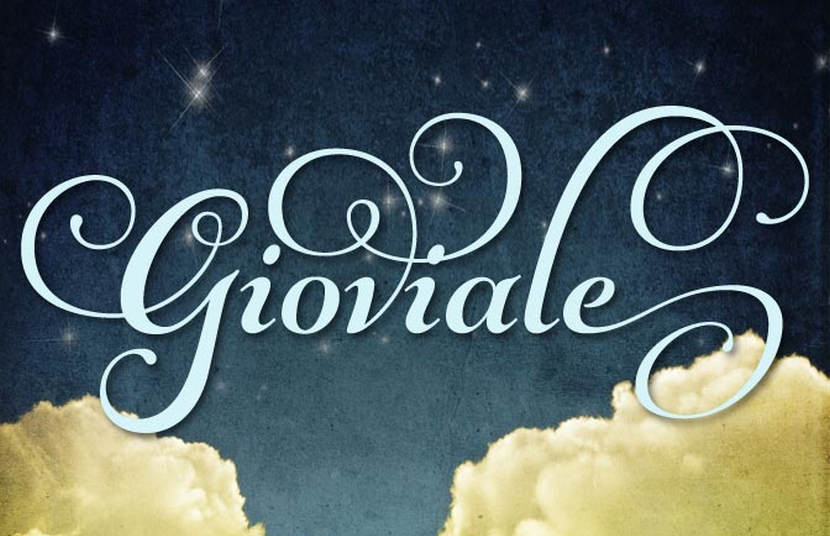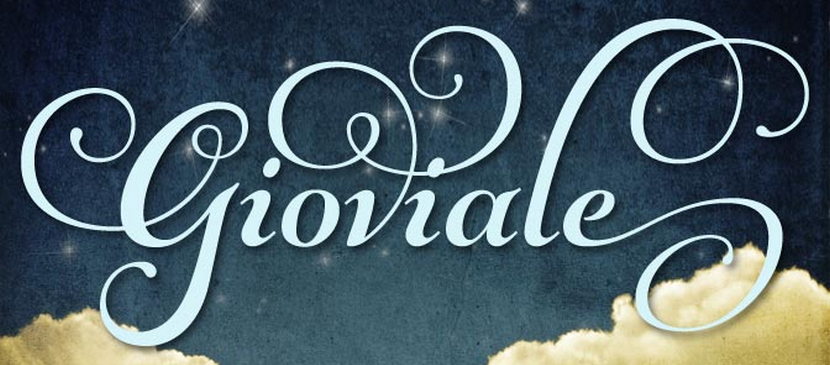
Deal of the Week: Gorgeous Gioviale Script Font
Script fonts have their issues. They can be bold and brash, yet legible. Or they can be beautifully curvaceous, yet a bit tough to decipher. What you need is a font that's "just right." The perfect balance between the two is the Gioviale typeface from Laura Worthington.